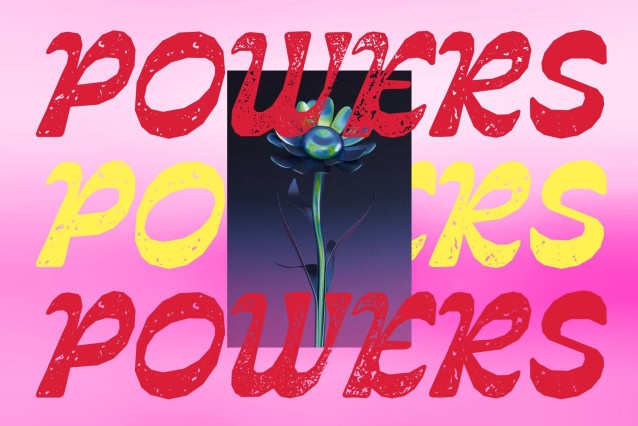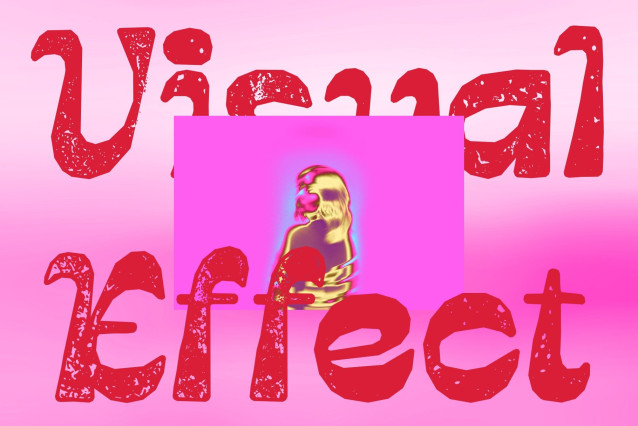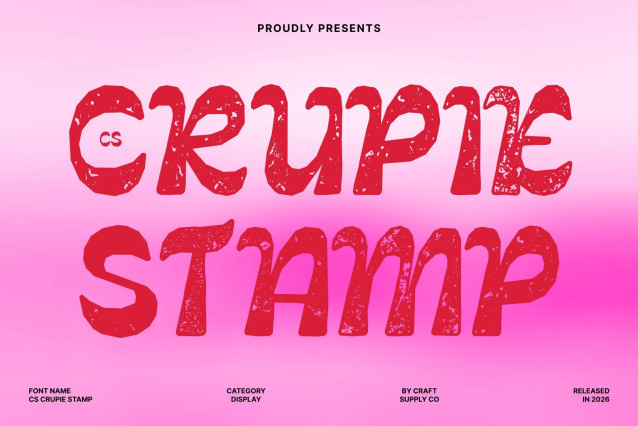
CS Crupie Stamp – Reverse Contrast Font: Bold, Retro, and Unconventional
Striking Reverse Contrast with Vintage Texture
This font is a reverse contrast display font that commands attention through its dramatic mix of thick horizontal strokes and thin vertical lines. Enhanced with a stamp effect, the font gains a vintage, slightly worn texture that strengthens its nostalgic personality while keeping its bold visual impact intact.
Retro Charm with a Nostalgic Feel
Inspired by typography from the 60s to 80s, this font brings a classic retro spirit into modern design. The stamped texture reinforces its throwback aesthetic, evoking the look of old posters, packaging, and print materials while still feeling fresh and contemporary.
Funky, Eccentric, and Full of Personality
Playful curves and unconventional letterforms give this font a lively and expressive character. The combination of reverse contrast structure and textured stamp finish creates a distinctive, artistic vibe perfect for projects that want to stand out and feel creatively rebellious.